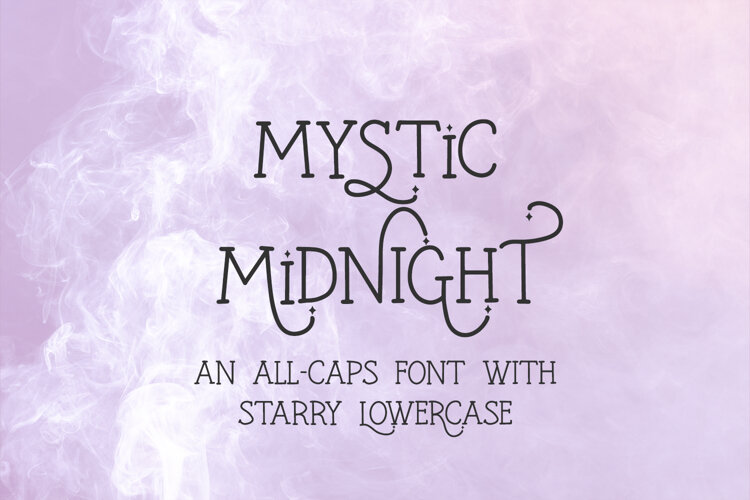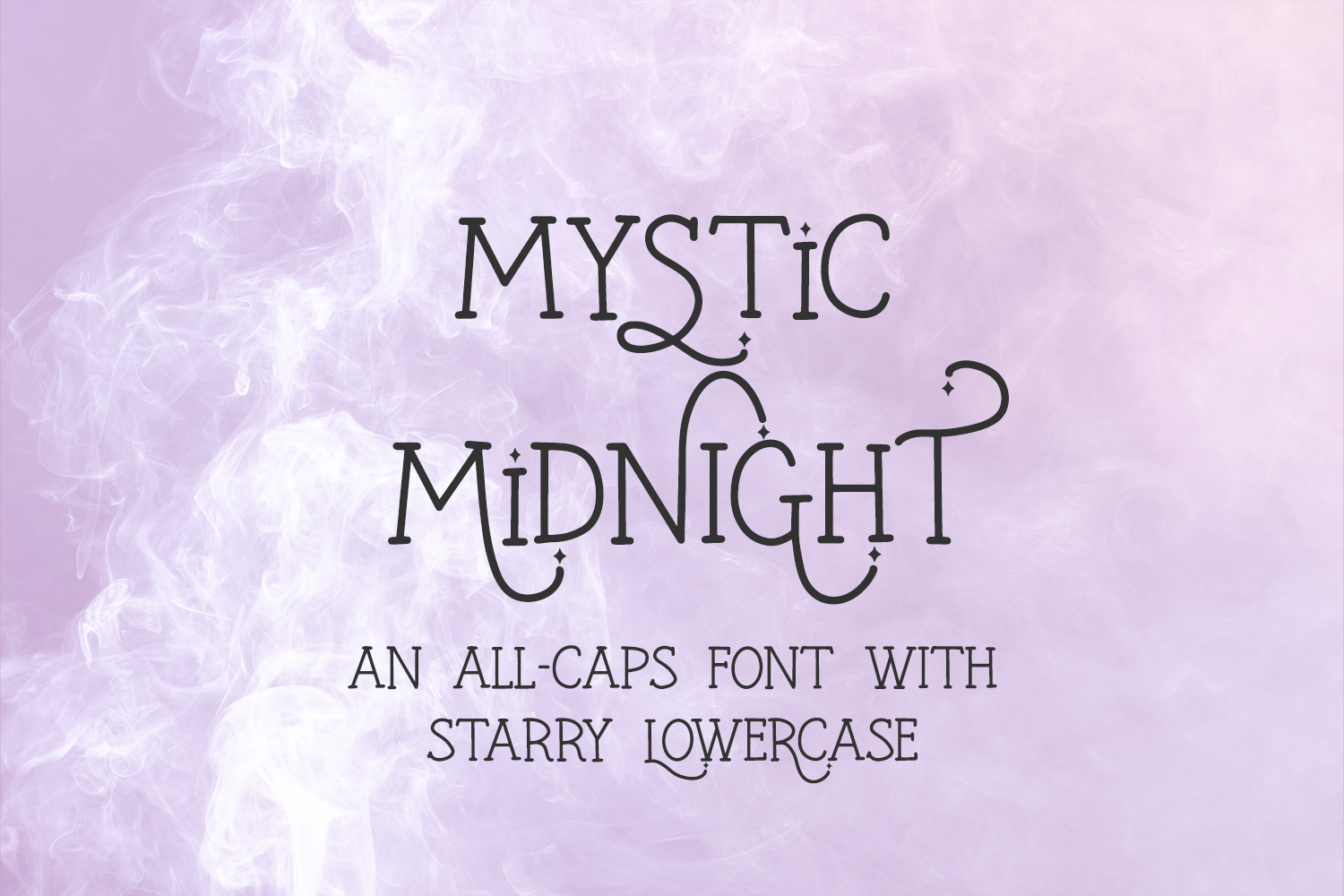
Mystic Midnight Serif
Mystic Midnight Serif is a hand lettered serif font. Mystic Midnight Serif is all caps, but the characters programmed into the lowercase a-z slots have tiny star details. The starry characters make Mystic Midnight the perfect fit for all things mystical, celestial, witchy, tarot, and Halloween. This font is fantastic for logos & branding, greeting cards, painted banners, digital planners, note-taking apps, Canva, Cricut projects, Silhouette projects, designing SVG files, laser cutting projects, & more.